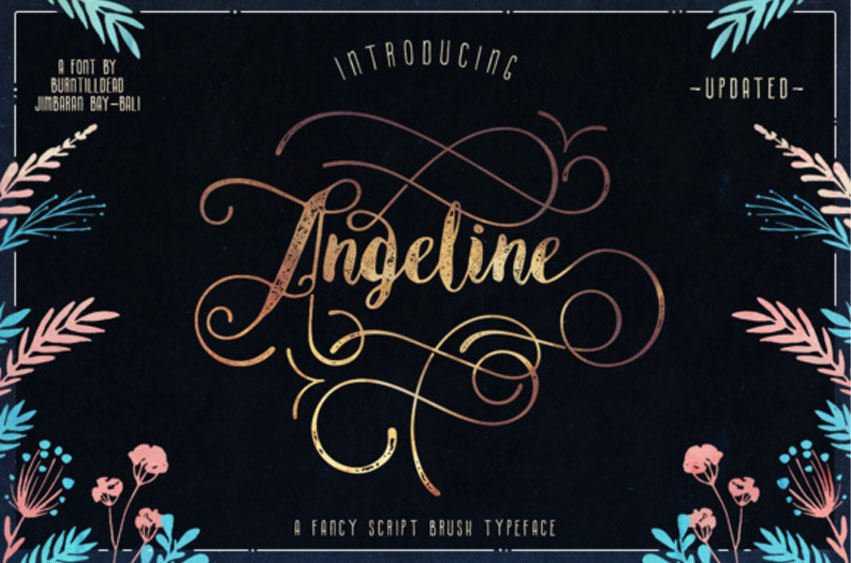
Angeline Brush Font is a beautiful, swashy script font with tons of sass and style!
This font is gorgeous and works well in modern and vintage designs in both print and web.